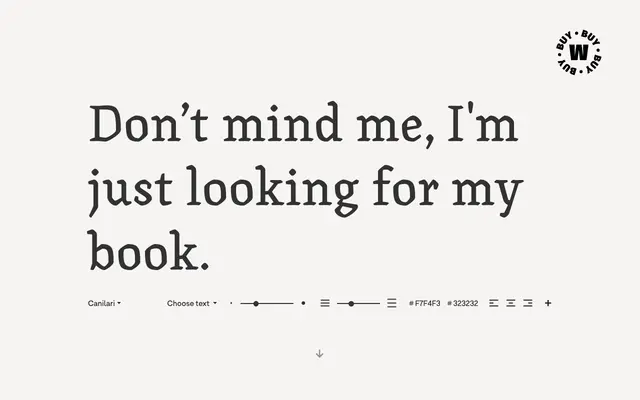
Canilari
A post-modern serif by Patricio Truenos drawing on the angular decorative patterns of Diaguita pottery from pre-colonial northern Chile and Argentina.
Designed by Patricio Truenos and awarded at Bienal Tipos Latinos 2014, Canilari translates the geometric decorative language of Diaguita ceramics into a high-personality serif family. Four weights with italics plus an ornaments set are offered in two character sets: Std (369 characters) and Pro (710 characters), together covering 219 languages. The angular shapes and consistent texture make it workable across continuous text in publishing contexts and high-impact headline or poster use.
Described explicitly as a post-modern type family; the angular shapes and high-contrast details place it in a display-oriented contemporary serif category inspired by indigenous decorative motifs.